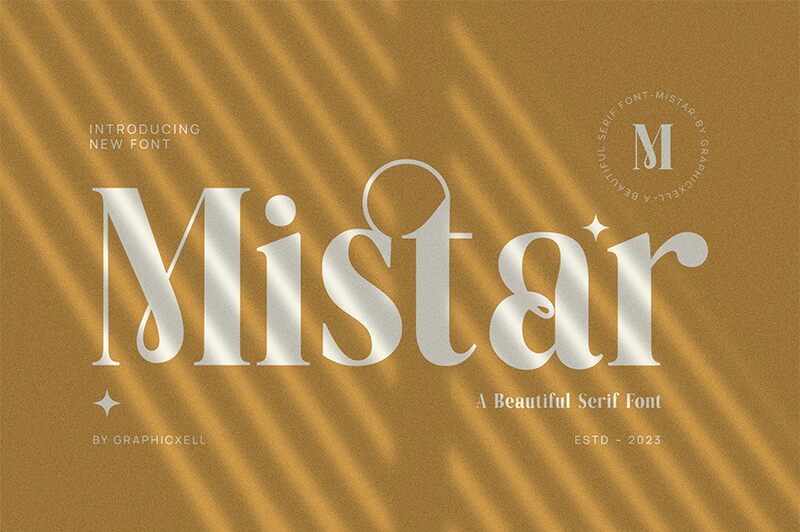
Mistar font created by Graphicxell is a free serif font featuring refined and ornate letterforms. Each character conveys an elegant, classic, and sophisticated touch to your text. The style is decorative with luxurious elements and timeless curves for an overall formal and graceful aesthetic. Although a premade digital design, the font borders a beautifully handwriting-like look from traditional signs.